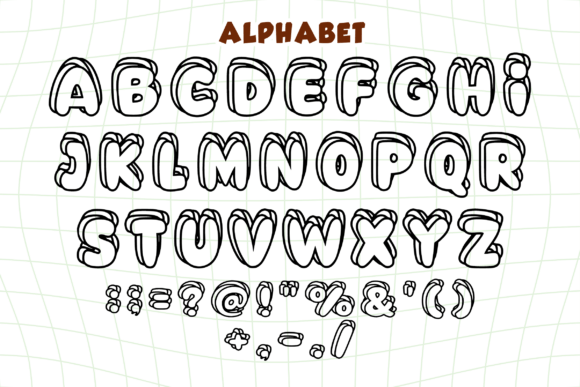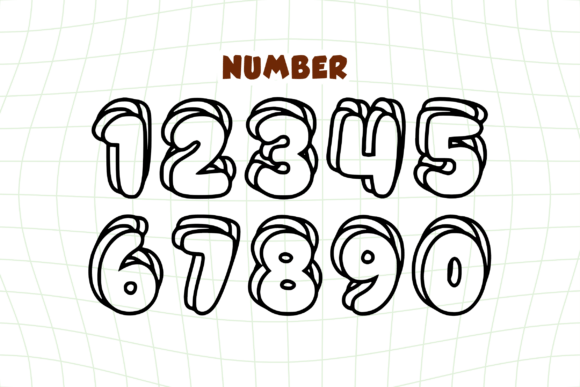
Introduction to Kids Joy Font
As a designer, have you ever sat in front of your computer, staring at a blank canvas, trying to come up with the perfect idea for a children’s project? The spark of creativity strikes, and you envision a colorful, whimsical design that will bring joy to kids of all ages. That’s exactly what the Kids Joy Font is all about – spreading happiness and creativity through its adorable characters.
Perfect for summer-themed crafts, the Kids Joy Font is a high-quality design resource that will take your creative project to the next level. With its transparent background, you can easily combine it with other elements to create stunning visuals. Whether you’re working on a sublimation design for t-shirts, mugs, or tote bags, this font is sure to impress. And the best part? It’s available for free download, making it an invaluable resource for designers of all levels.
Key Features of Kids Joy Font
- High-quality design resource with a transparent background, ideal for creative projects and backgrounds.
- Designed specifically for kids-related content, with a playful and colorful aesthetic that adds a touch of joy to any creative project.
- Includes a range of characters, including uppercase and lowercase letters, numbers, and symbols, for comprehensive use in design and writing.
Honest Review: Kids Joy Font
I recently came across the Kids Joy Font and decided to give it a try for my next creative project. As a designer, I always appreciate high-quality design resources that can elevate my work.
Here are some of the things I like about the Kids Joy Font: ✨
- The font is highly customizable, making it suitable for a wide range of creative projects.
- The transparent background feature allows for seamless integration with various design elements.
However, I did encounter a few limitations: ⚠️
- The font may not be ideal for projects that require a lot of fine detail, as it can appear a bit pixelated at smaller sizes.
- The font’s color palette is quite limited, which may not be suitable for all design projects.
Overall, I would say that the Kids Joy Font is a solid design resource that can add a touch of playfulness to your creative project. While it may have some limitations, its high quality and customization options make it a great choice for designers looking for a fun and versatile font.
How to Use Kids Joy Font
Kids Joy Font is a high-quality, free download design resource perfect for creative projects. With its unique and playful style, this font is ideal for kids’ related projects, educational materials, and family-friendly content.
Tips for Getting the Most Out of Kids Joy Font
To get the most out of Kids Joy Font, use it on a transparent background to create a sense of depth and visual interest. You can also combine it with other design elements to create a unique and eye-catching design.
Kids Joy Font is perfect for:
– Children’s party invitations and decorations
– Educational materials and worksheets